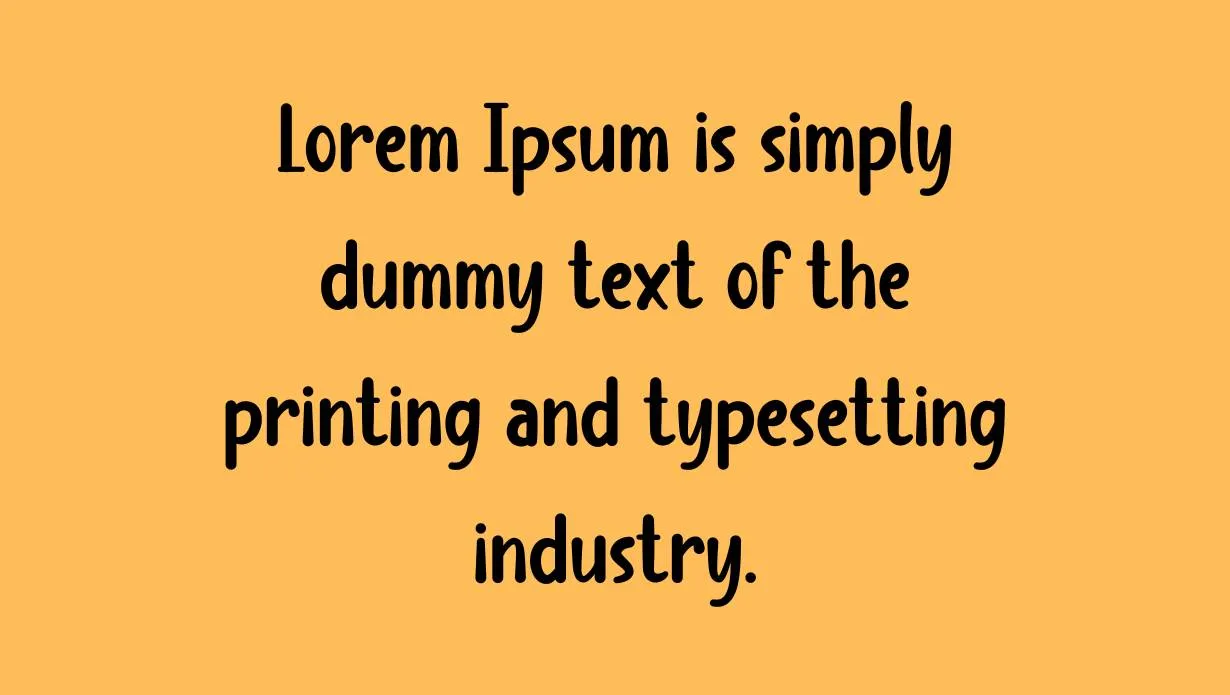
Rantautype created this attractive fancy design. Users can try this font on any project that needs a unique look. Lucky Boss Font is best suited to make unique headlines and bold text.
The program has excellent features and supports many languages. By pairing this style with other fonts, you can create beautiful and decorative designs. When you want to increase the prominence of your project, this style is a great option.
Lucky Boss Font Family